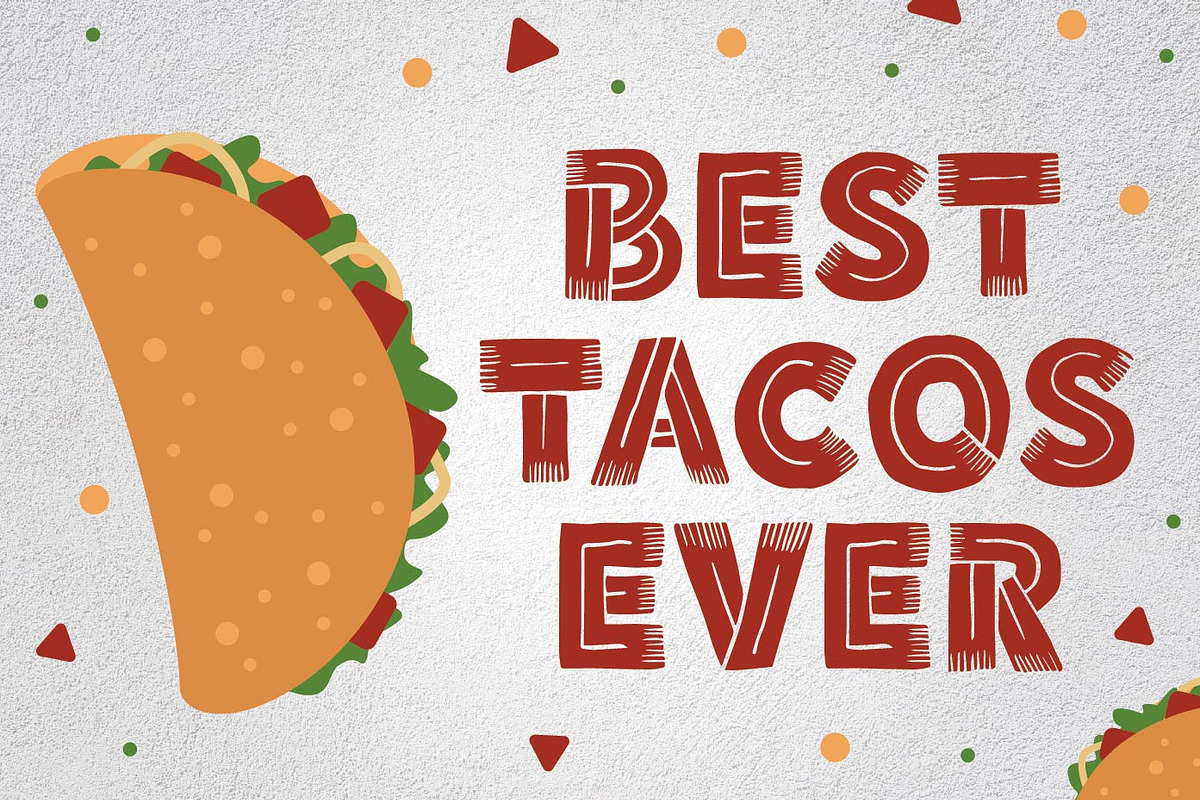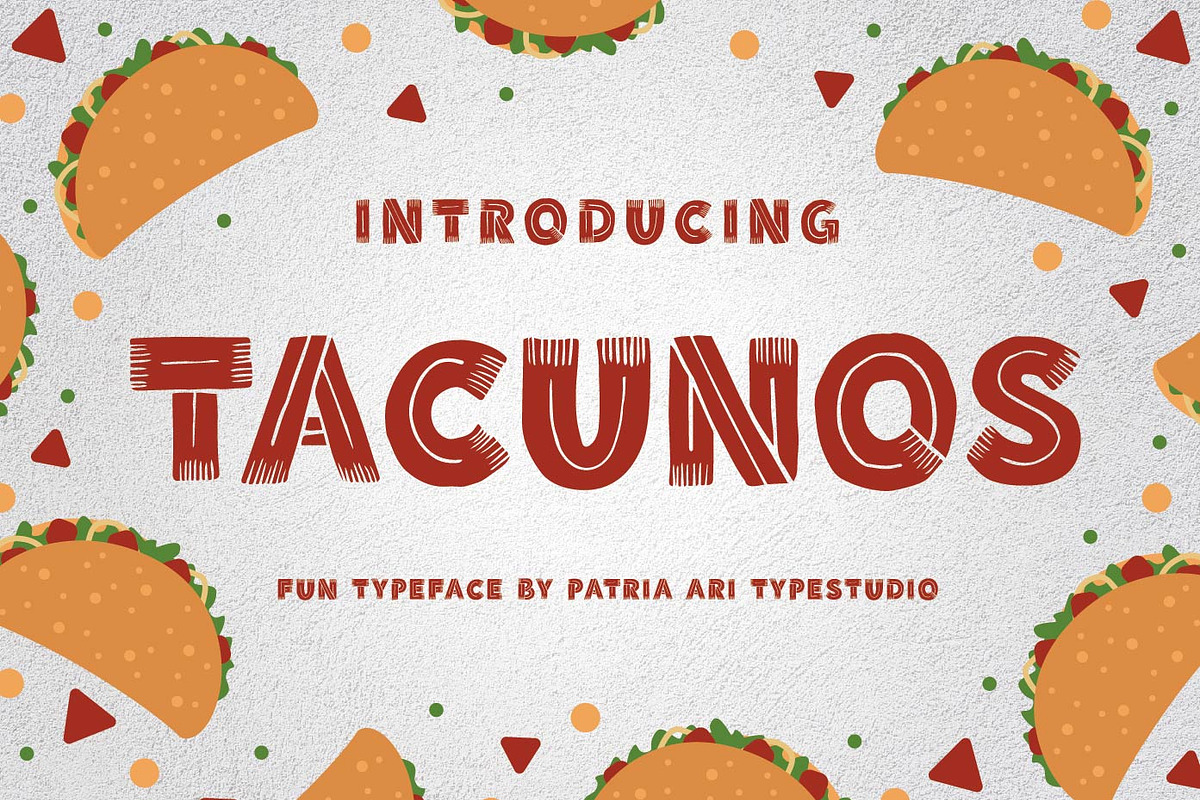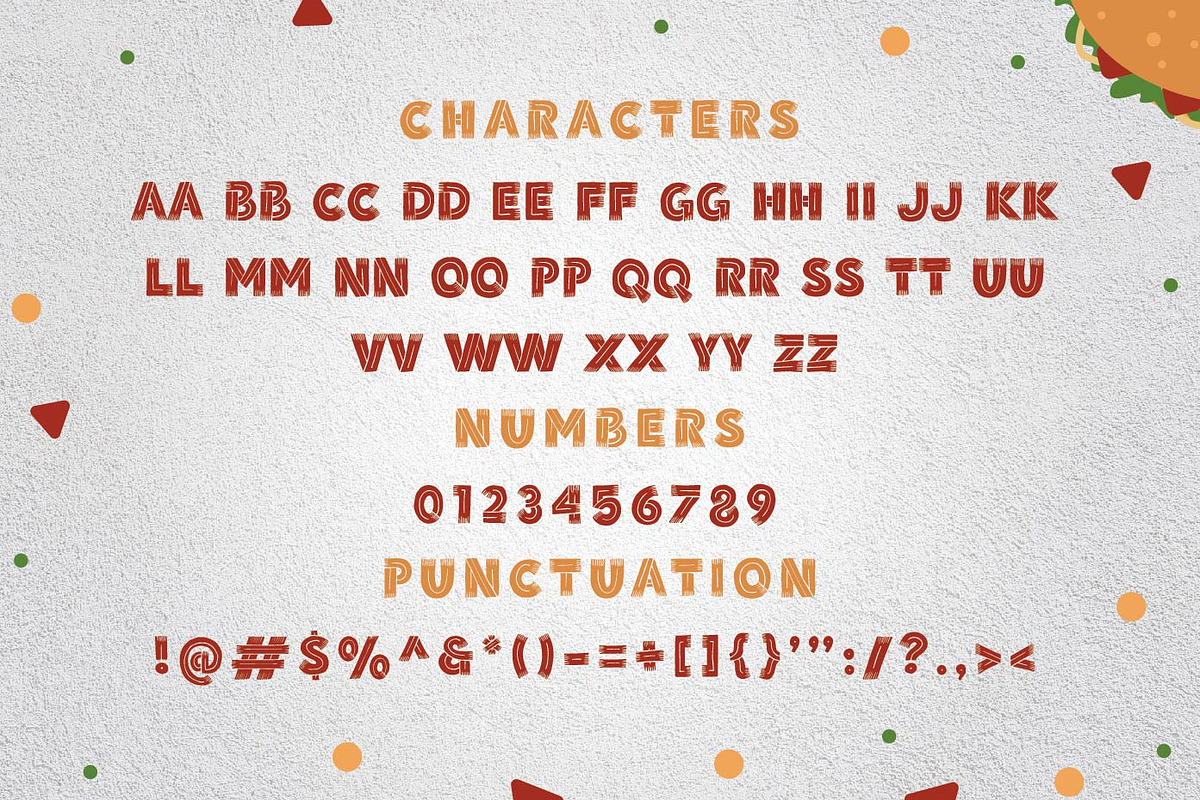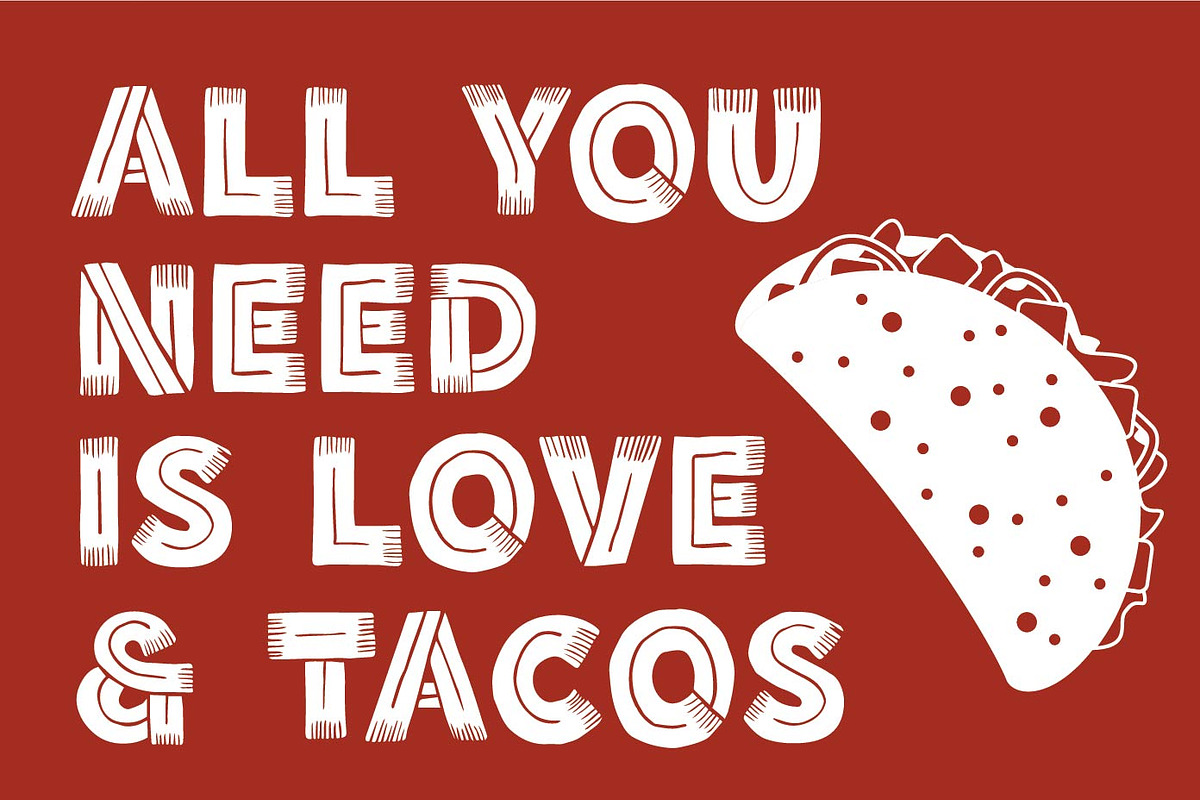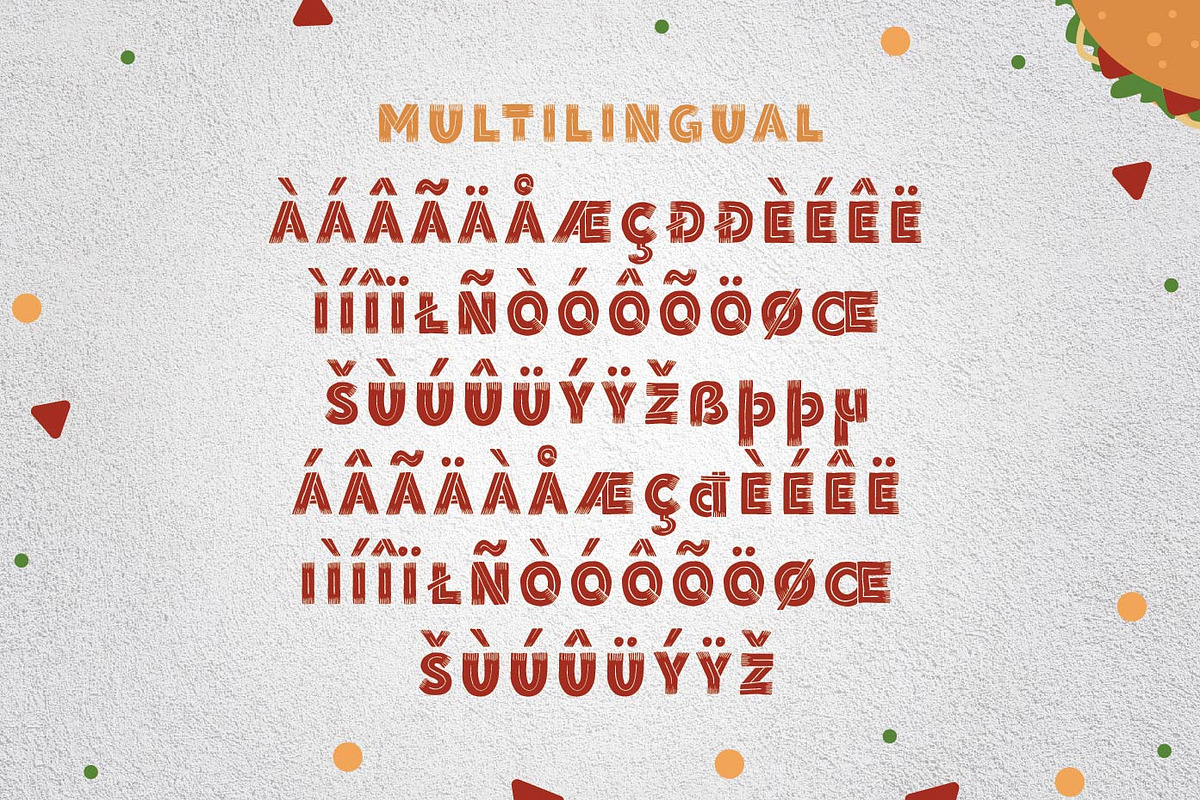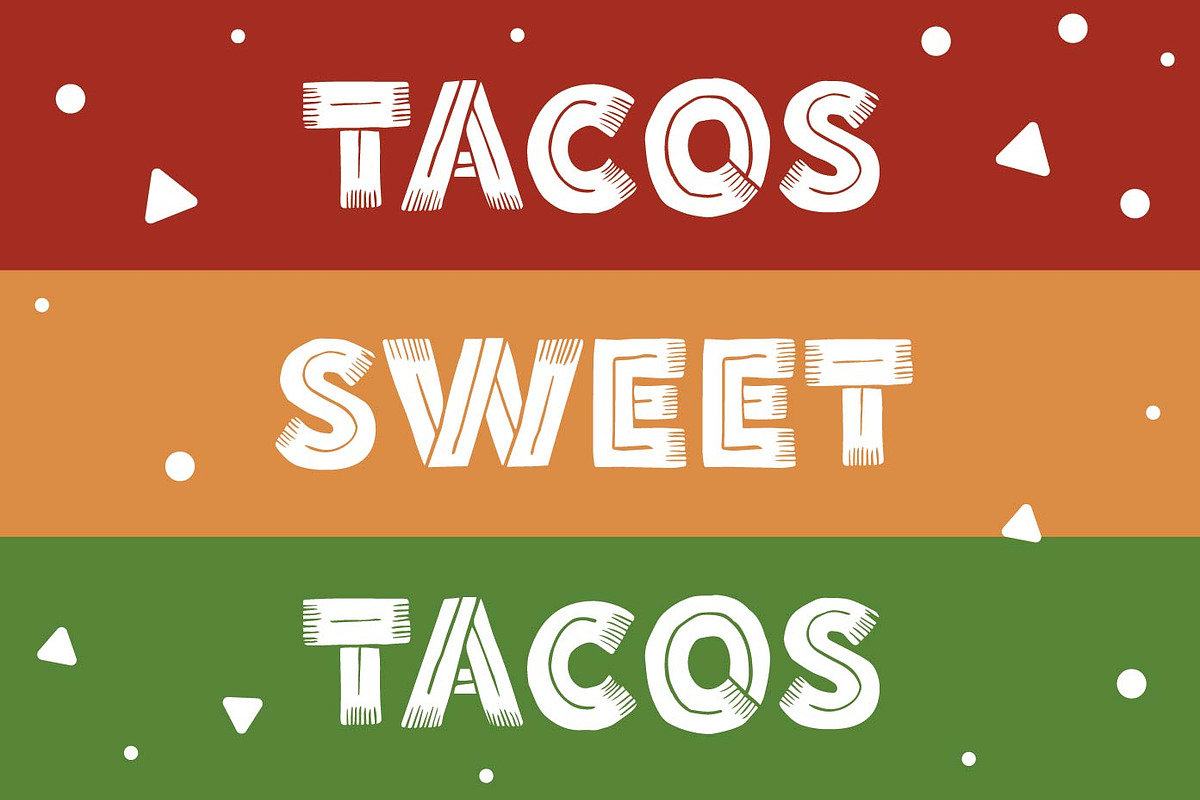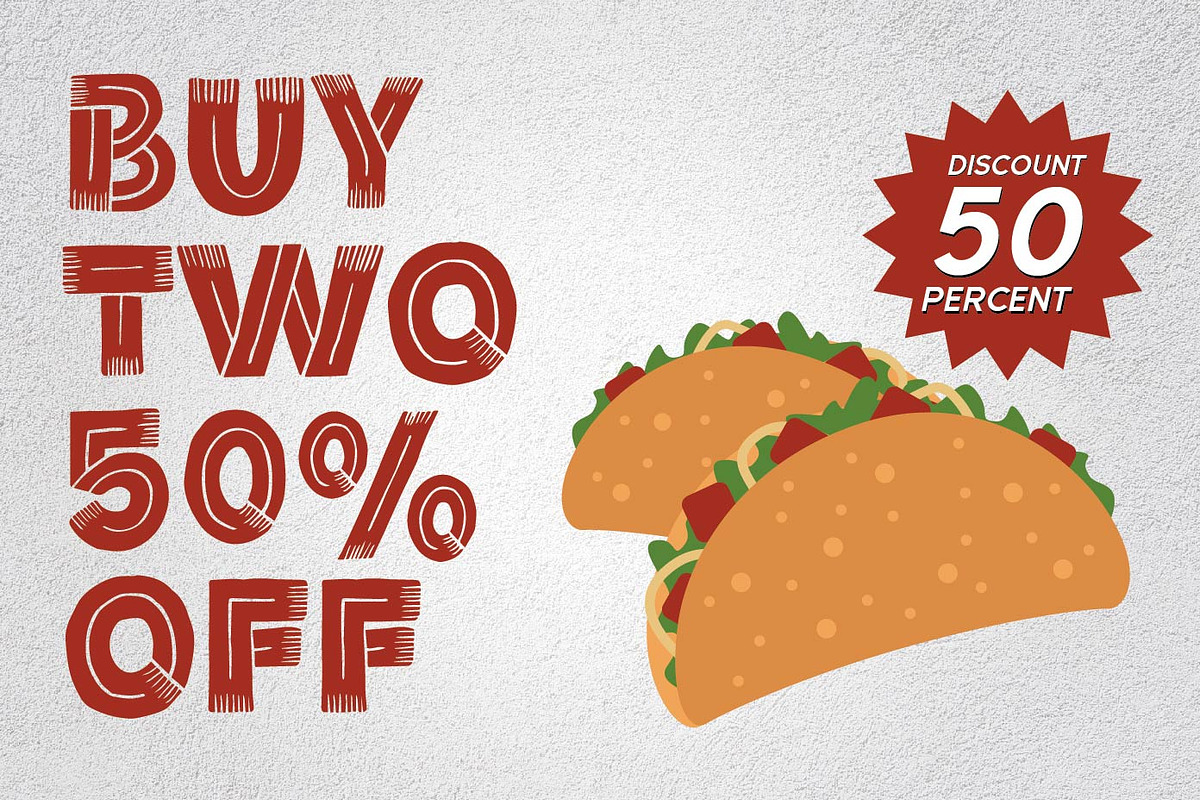
Tacunos - Food Display Fonts
Tacunos is an all caps display typeface inspired from tacos food.
Tacunos is perfect for branding projects, logo, social media posts, advertisements, product packaging, product designs, label, and any projects that you work on.